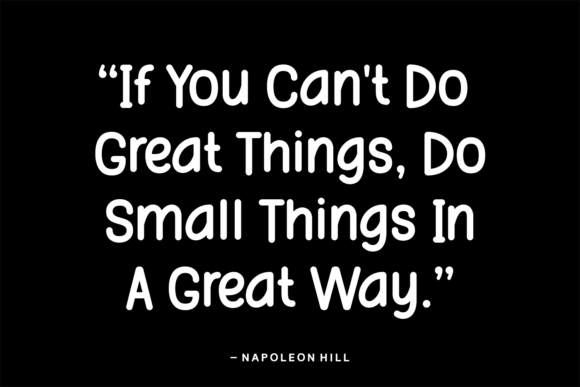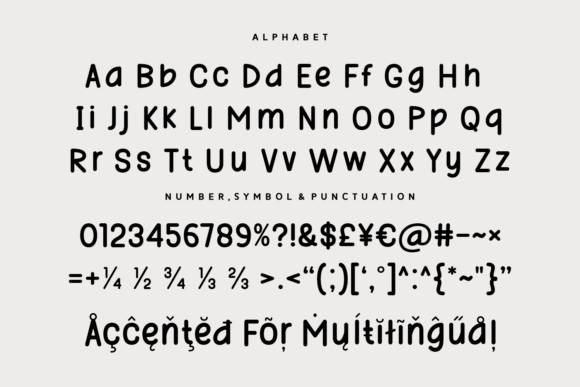
Introducing Aljib Font: The Ultimate Christmas Font for Your Holiday Designs
Are you looking for a font that captures the magic and joy of the holiday season? Look no further than Aljib Font, also known as Christmas Stories! This festive font is perfect for designers and crafters who want to add a touch of holiday cheer to their creations. In this article, we’ll explore the features and benefits of Aljib Font and how it can elevate your Christmas designs.
A Unique Blend of Sans Serif and Fun Fonts
Aljib Font, or Christmas Stories, is a unique blend of Sans Serif and fun fonts that perfectly captures the warmth and joy of the holiday season. The playful, stylish, and charming letters are ideal for a wide range of designs, from logos and social media graphics to cards, crafts, and more. Whether you’re creating stickers, banners, or gifts, Christmas Stories adds a cheerful touch to every creation, making your holiday projects merry and bright!
Perfect for Holiday Designs
Aljib Font is specifically designed to bring holiday magic to life. The font’s playful and charming letters evoke the feeling of snowflakes, twinkling lights, and cozy nights by the fire. With Christmas Stories, you can create designs that are both festive and fun, perfect for the holiday season. From Christmas cards and invitations to social media graphics and website headers, this font is sure to add a touch of holiday cheer to any design.
Key Features of Aljib Font
- Playful and charming letters: Christmas Stories features playful and charming letters that are perfect for holiday designs.
- Unique blend of Sans Serif and fun fonts: This font combines the clean lines of Sans Serif with the playfulness of fun fonts, creating a unique and eye-catching style.
- Ideal for logos, social media, cards, and crafts: Christmas Stories is versatile and can be used for a wide range of designs, from logos and social media graphics to cards, crafts, and more.
- Perfect for holiday projects: This font is specifically designed for holiday designs, making it perfect for Christmas cards, invitations, social media graphics, and more.
Aljib Font offers a range of benefits for designers and crafters, including:
- Easily create festive designs: With Christmas Stories, you can easily create festive designs that capture the magic and joy of the holiday season.
- Add a touch of holiday cheer to any design: This font adds a cheerful touch to every creation, making your holiday projects merry and bright!
Tips for Using Aljib Font
Here are some tips for using Aljib Font in your holiday designs:
- Experiment with different colors and textures: Try pairing Christmas Stories with different colors and textures to create unique and eye-catching designs.
- Use it for headings and titles: This font is perfect for headings and titles, adding a touch of holiday cheer to any design.
- Combine it with other fonts: Try combining Christmas Stories with other fonts to create a unique and eye-catching style.
Aljib Font, also known as Christmas Stories, is the perfect font for designers and crafters who want to add a touch of holiday magic to their creations. With its playful, stylish, and charming letters, this font is ideal for a wide range of holiday designs, from logos and social media graphics to cards, crafts, and more. Whether you’re creating stickers, banners, or gifts, Christmas Stories adds a cheerful touch to every creation, making your holiday projects merry and bright! So why wait? Download Aljib Font today and bring holiday magic to life with your designs!